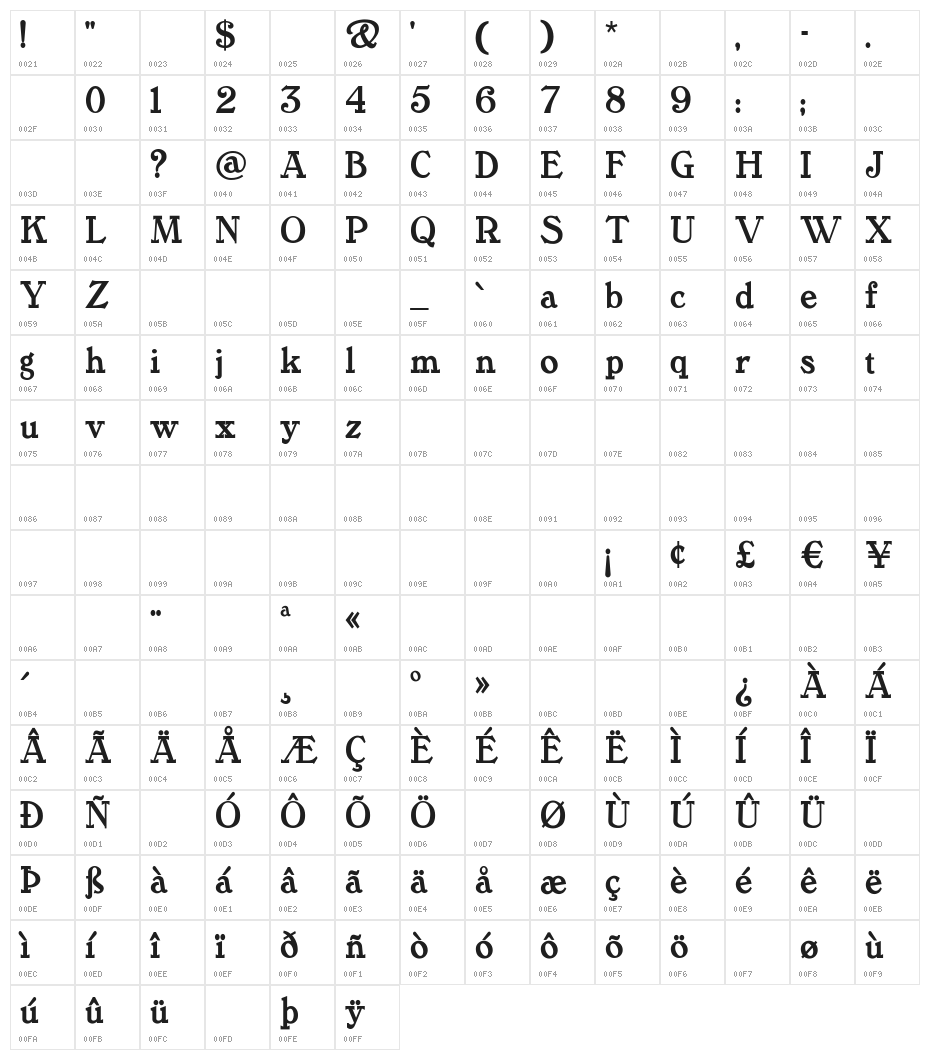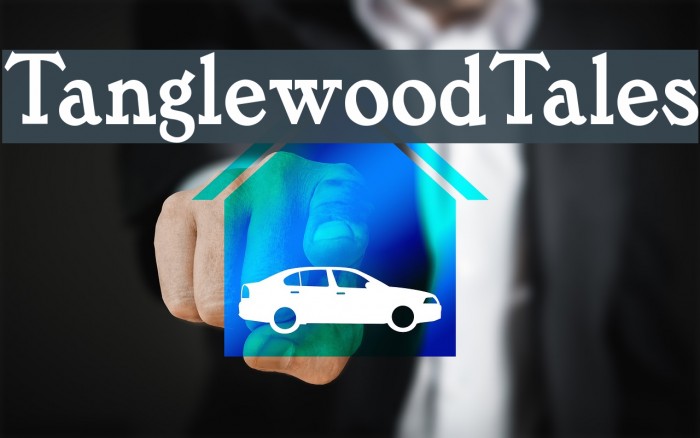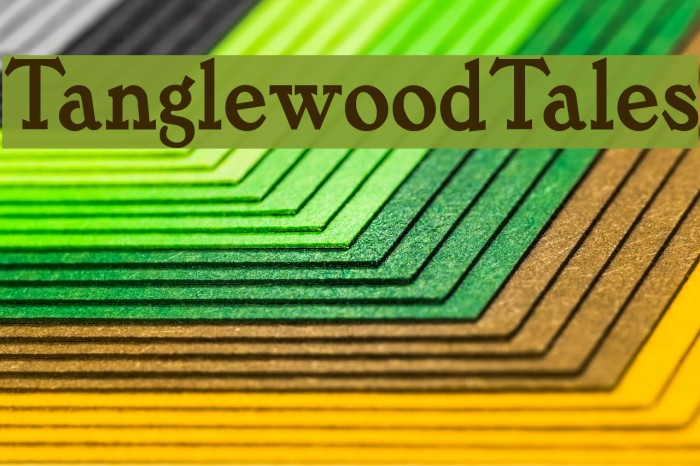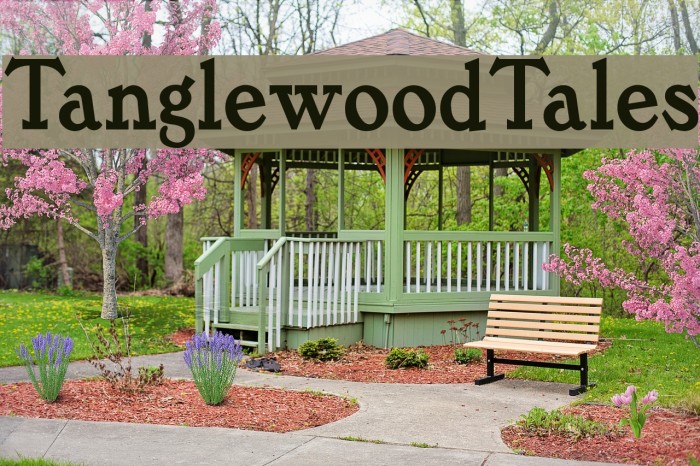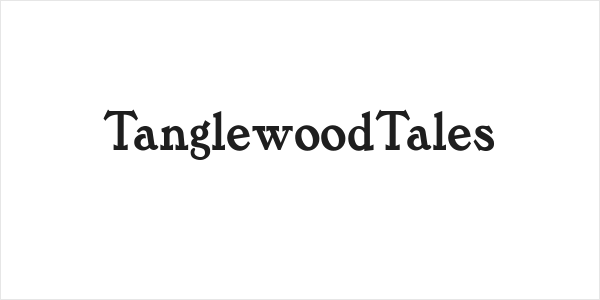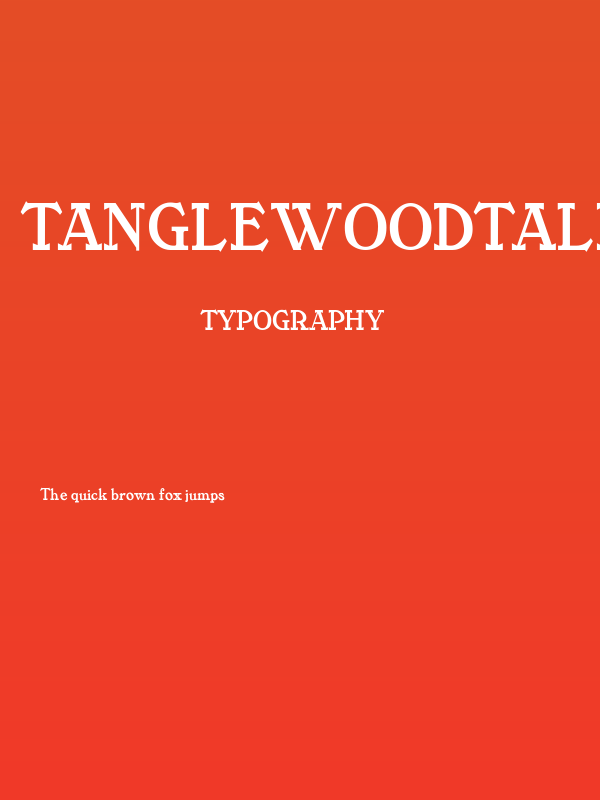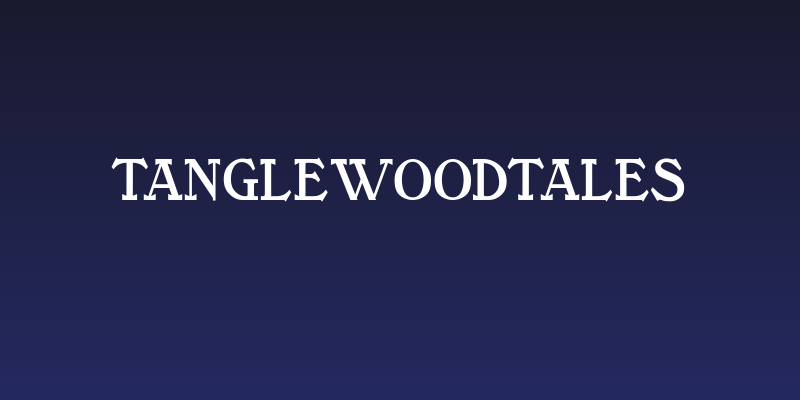
TanglewoodTales Font
TanglewoodTales Description
This font features a classic serif style with strong, bold strokes and pronounced serifs. The uppercase letters are robust and commanding, while the lowercase letters maintain a consistent weight, offering a harmonious balance. The numerals are equally bold, ensuring readability and impact. Special characters are crafted with the same attention to detail, making them stand out. The overall design exudes a sense of tradition and authority, suitable for projects that require a touch of elegance and sophistication.